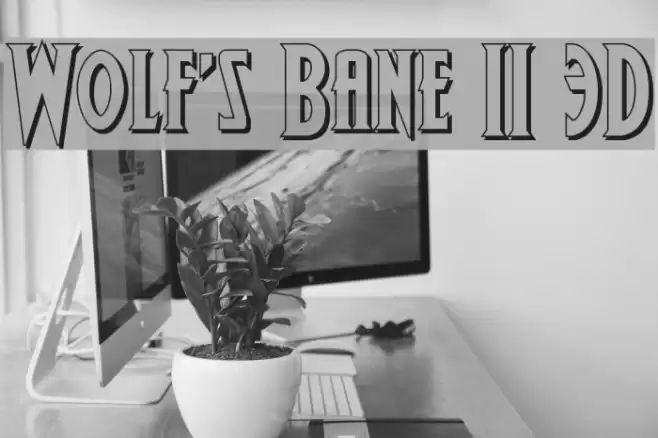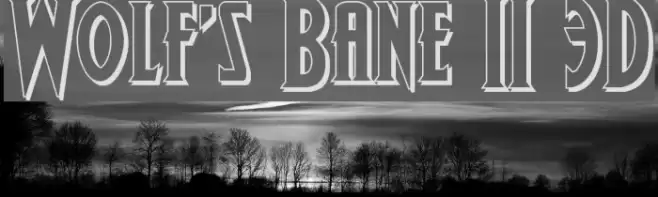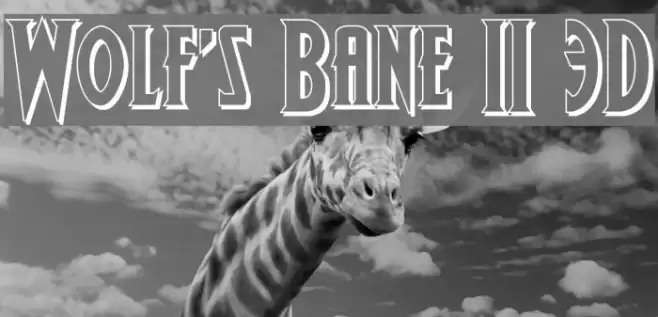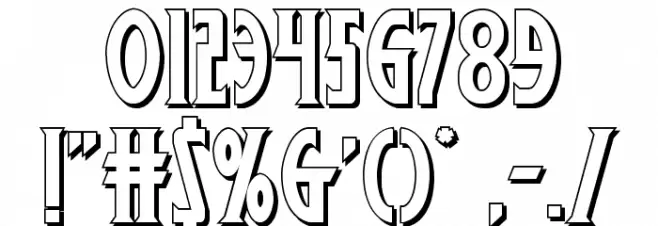
Wolf's Bane II 3D Font
Wolf's Bane II 3D Description
This font features a bold, three-dimensional style with sharp, angular edges that create a striking visual impact. The letters are outlined with a shadow effect, giving them a sense of depth and dimension. The uppercase and lowercase characters maintain a consistent geometric form, while the numbers and special characters follow the same design principles, ensuring uniformity across all glyphs. The font's unique style makes it ideal for attention-grabbing headlines or titles, where a dramatic and bold statement is desired. The spacing between characters is tight, enhancing the compact and cohesive appearance of the text.
A bold, 3D font with sharp, angular edges and a shadow effect from Uncategorized fonts.
- Proposed Projects: Ideal for posters, logos, video game titles, and any project requiring a bold, dramatic typeface.
- Character Spacing: Tight
- Overall Style: Modern, Decorative